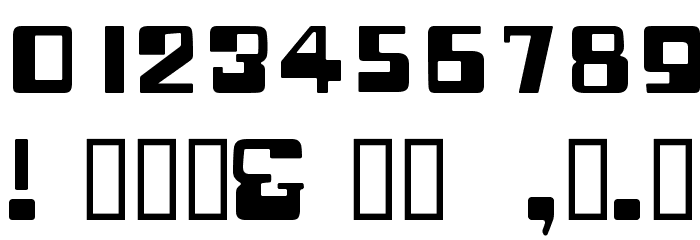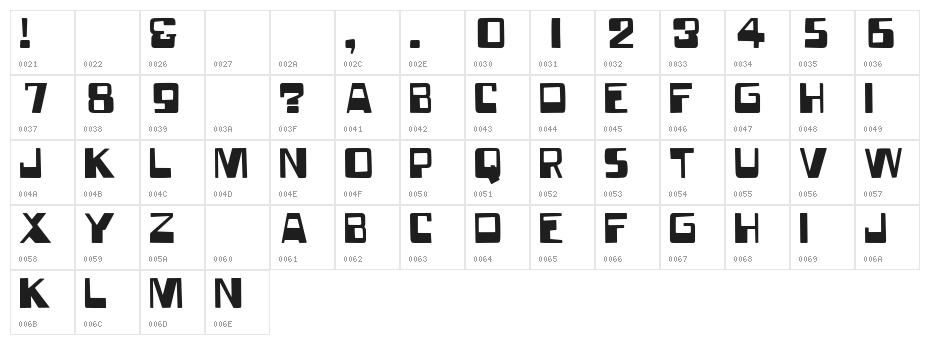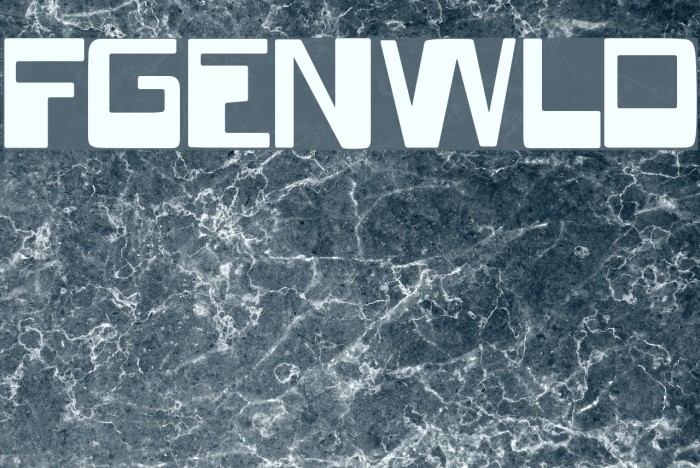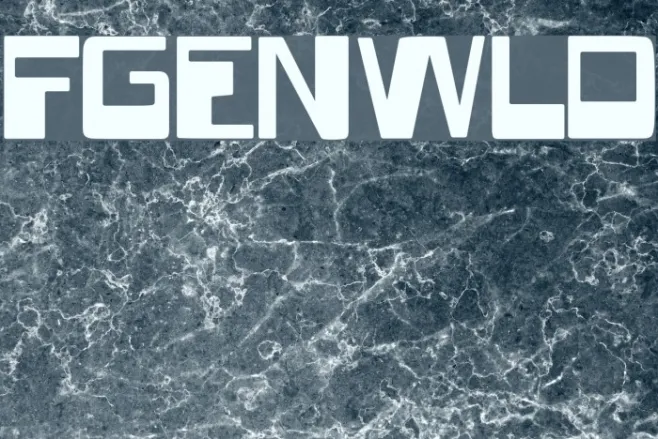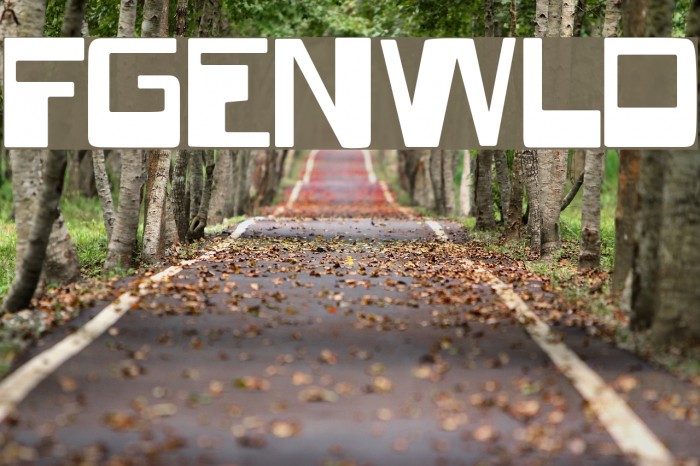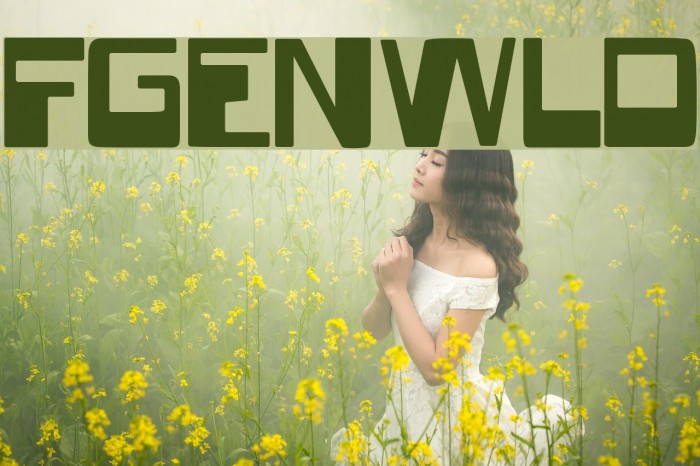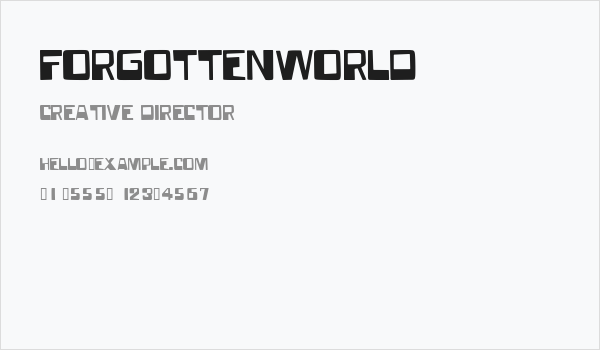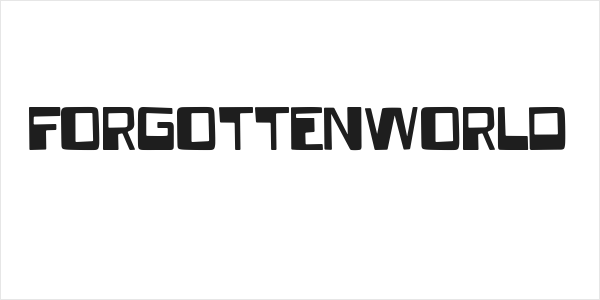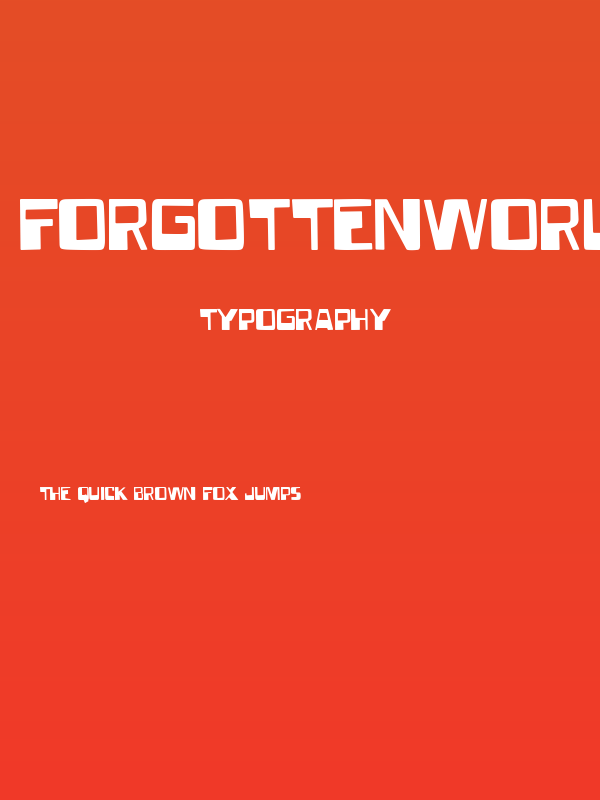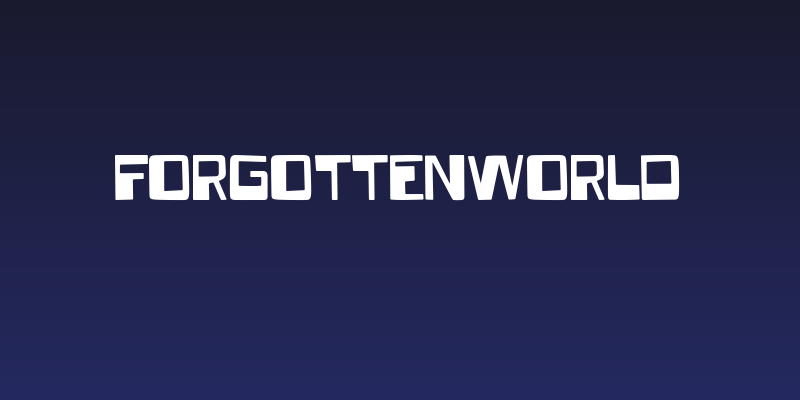
ForgottenWorld Font
ForgottenWorld Description
This font features a bold and geometric design, characterized by its strong, angular lines and solid structure. The uppercase letters are uniform in height, with a distinct blocky appearance that gives a sense of stability and strength. The lowercase letters maintain the same boldness, offering a cohesive look across both cases. Numbers and special characters follow the same design principles, ensuring consistency throughout. The font's style is reminiscent of industrial or futuristic themes, making it suitable for projects that require a modern and impactful visual statement.